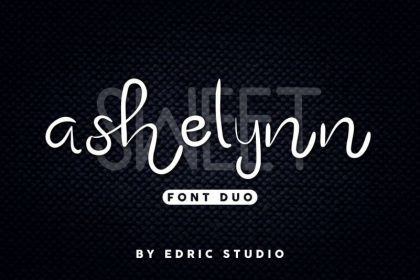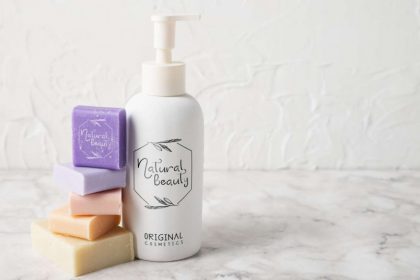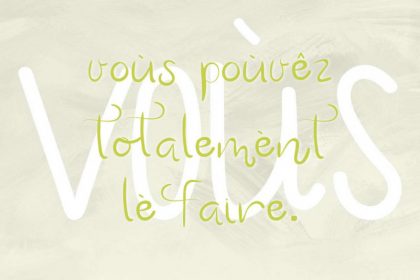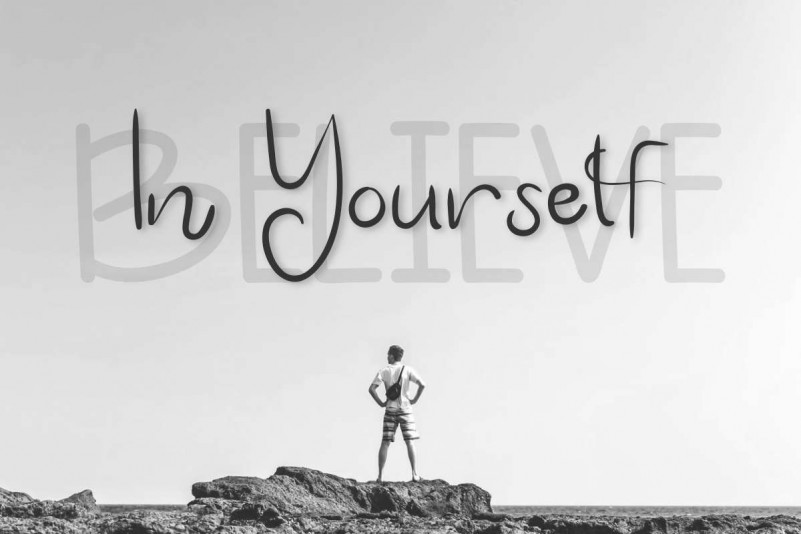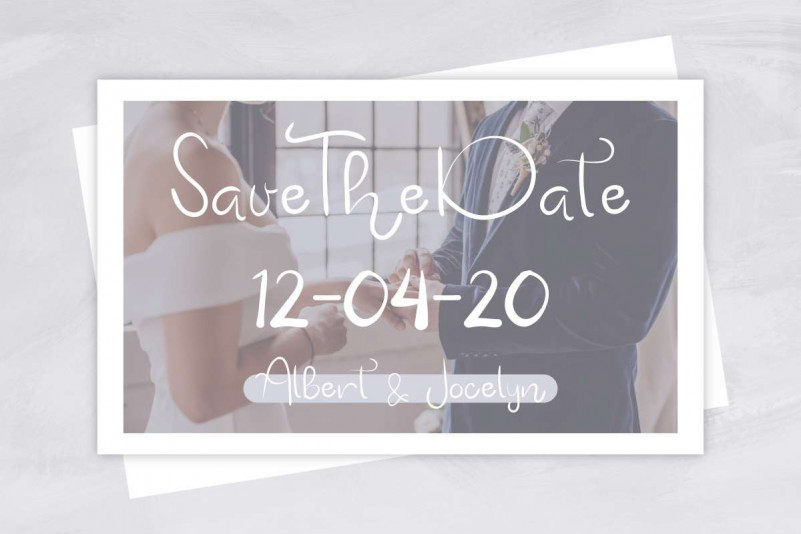
Ashelynn Sweet Font Duo
Ashelynn sweet Font Duo is a modern decorative font duo with handwriting style sans serif and script font type. The font will be perfect for branding, logo (with extended license), stationery, business card, signage, flyer, brochure etc. There are many industries that is suitable for this font : construction, real estate, services, law firm, game, apps, technology, travel, hotel etc